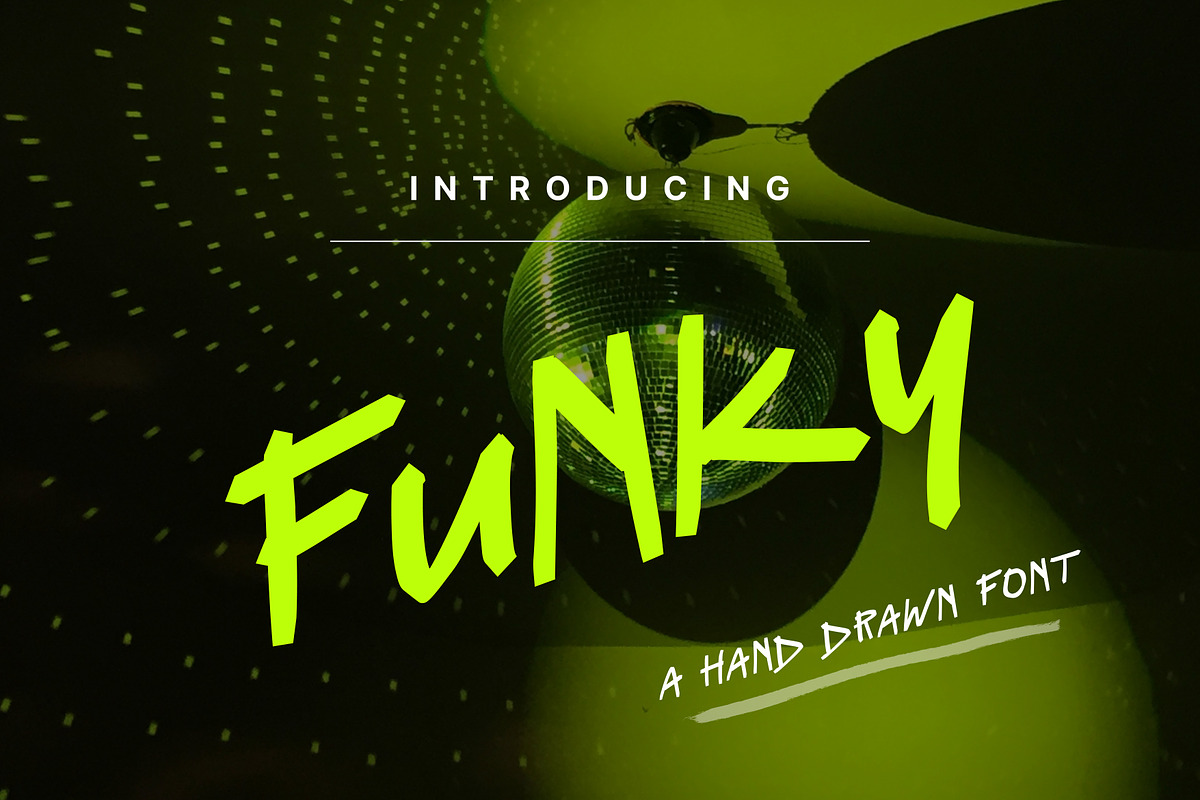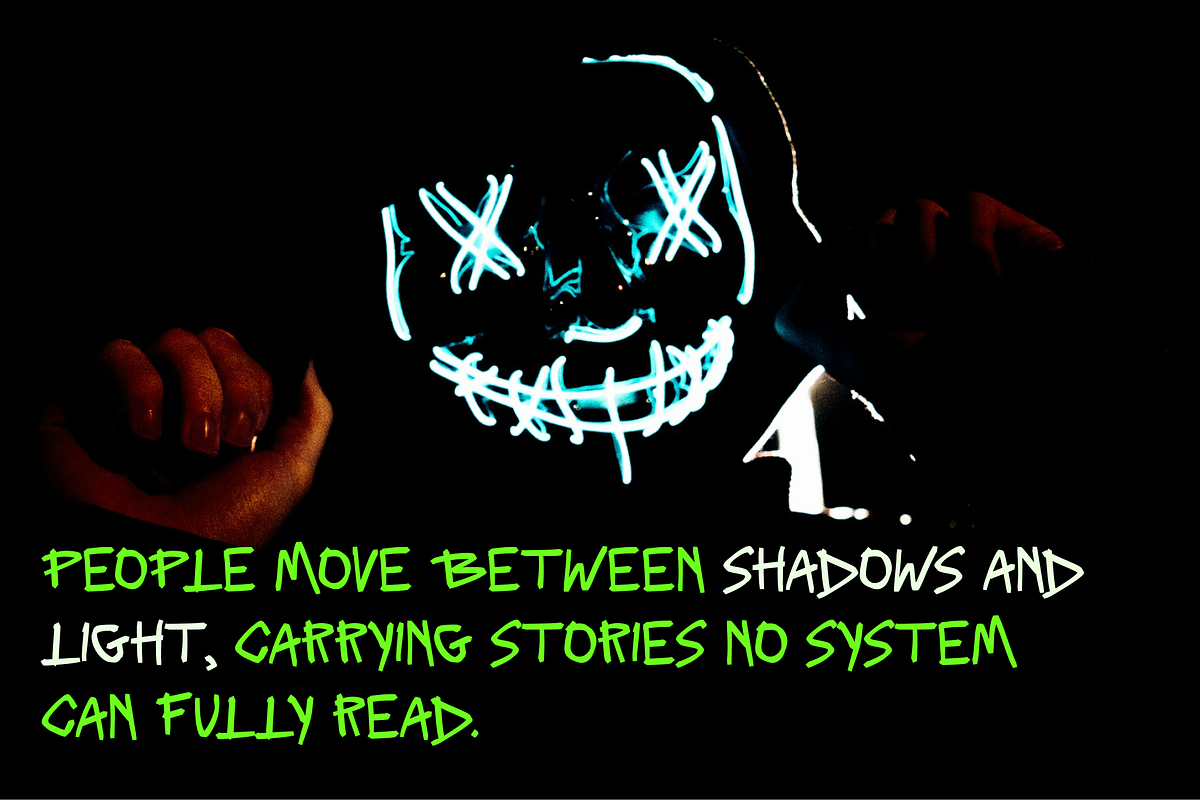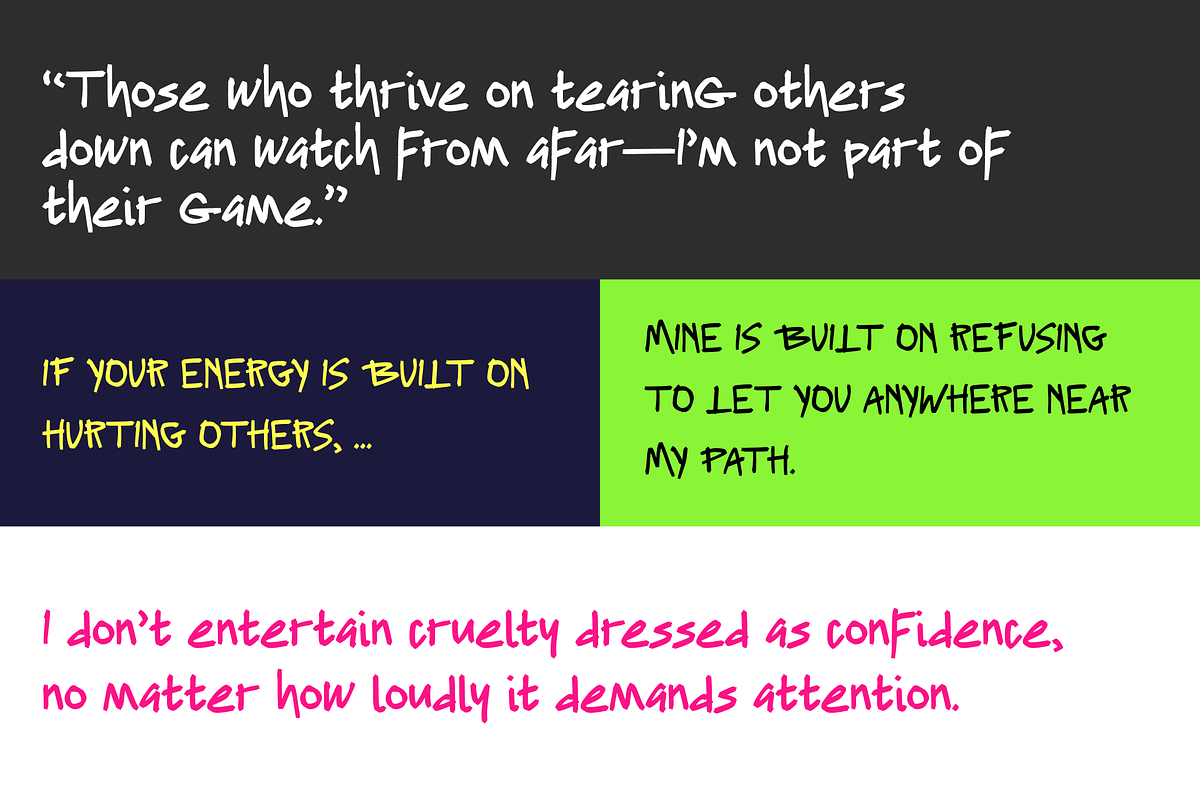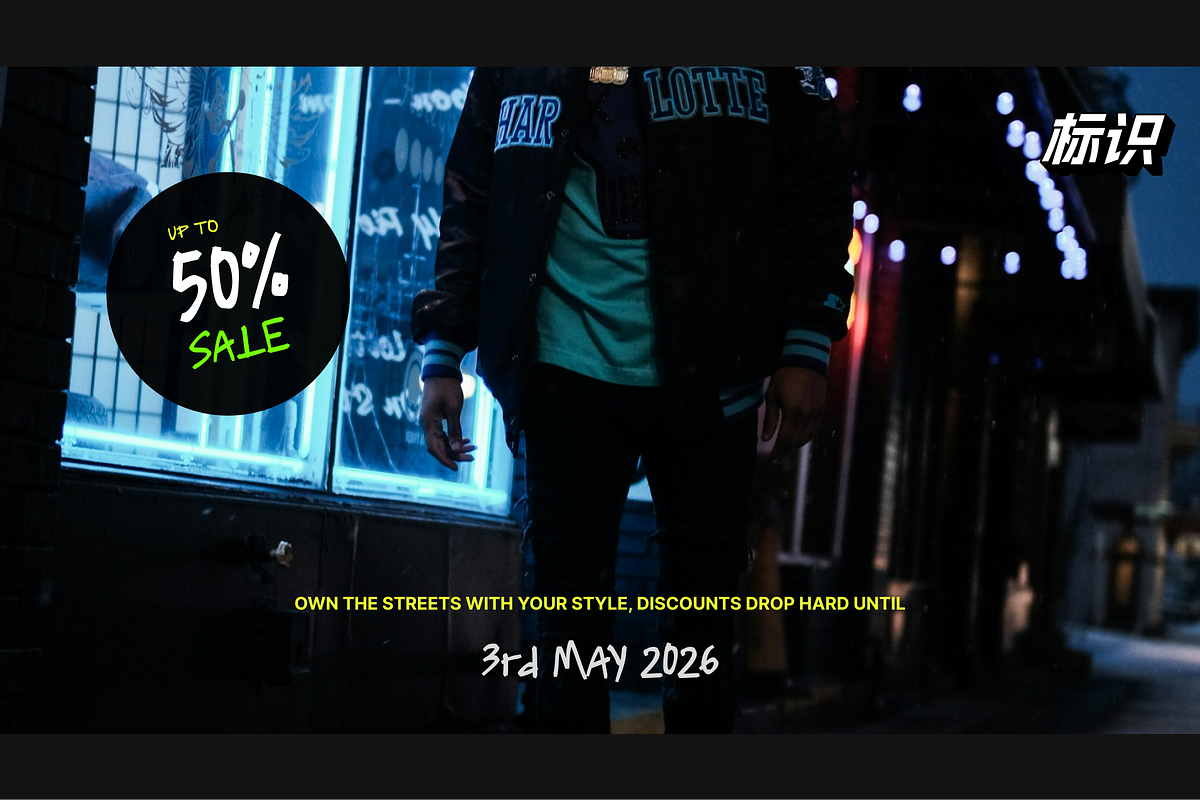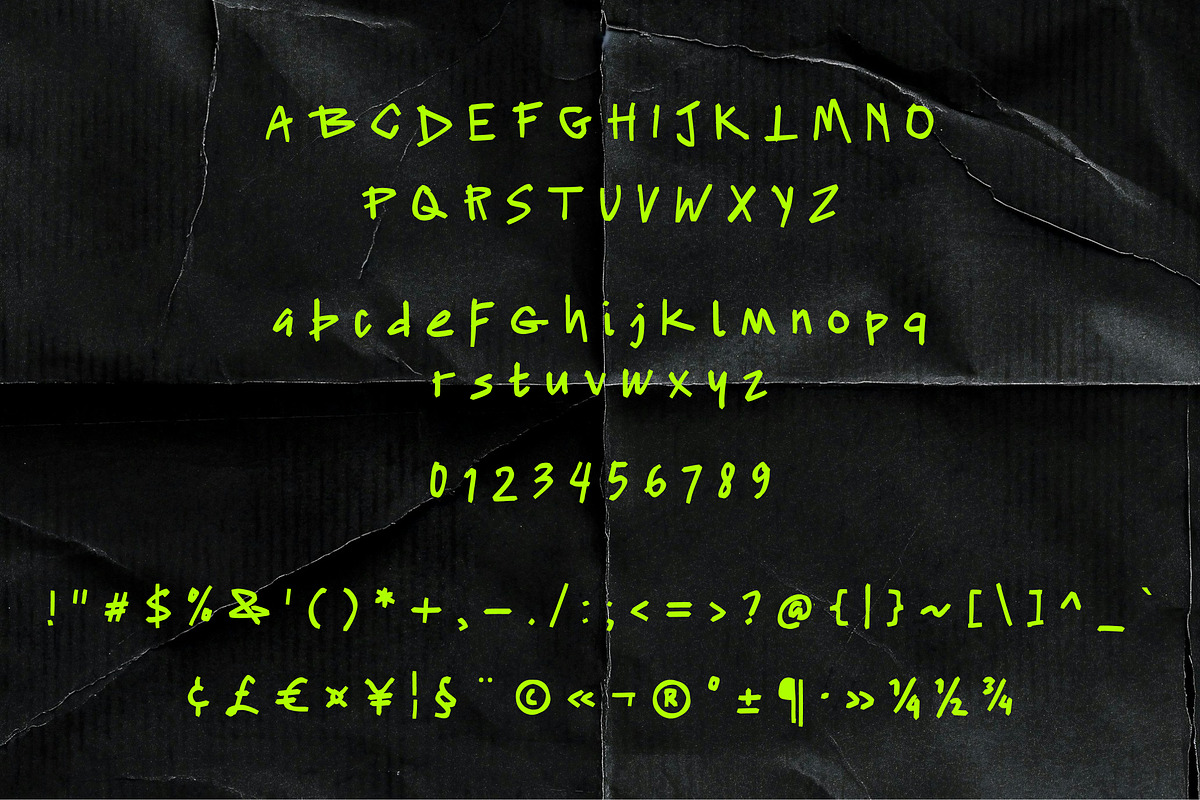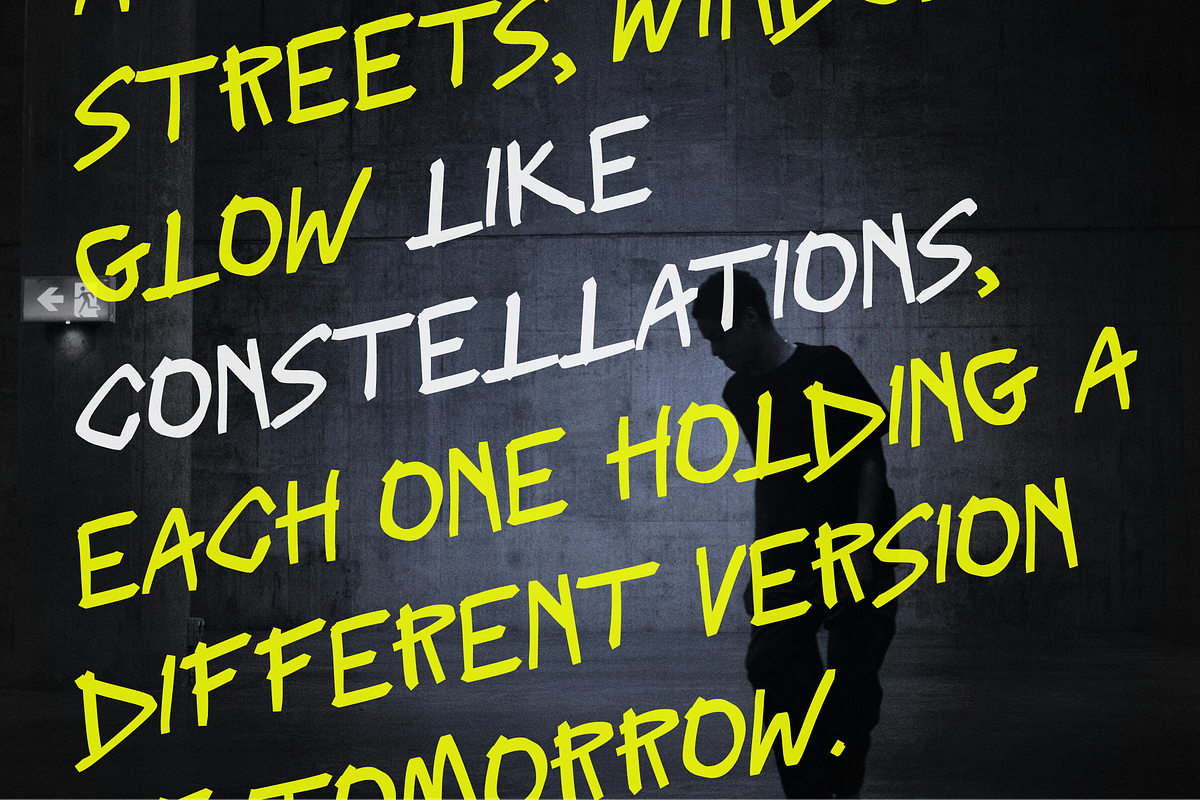
Funky Handwritten Font
Funky is a bold hand-drawn display font inspired by the energy of futuristic city life — where neon lights meet quiet streets, and digital visuals blend with human expression. It brings a cyber-style aesthetic with a softer, more approachable tone, making it perfect for designs that want to feel modern without being overly aggressive.
With its irregular strokes and expressive letterforms, Funky captures a raw, spontaneous feel while still maintaining clarity and readability. The style feels alive, slightly imperfect, and full of character — ideal for standing out in a visually saturated digital world.
This font works beautifully for projects that need a futuristic edge with a human touch.
Poster & editorial design Branding & identity Social media graphics Game-related visuals Urban and lifestyle themes Experimental and creative layouts
Uppercase & lowercase characters Numbers & punctuation Hand-drawn style with unique personality Easy to use and highly versatile
Funky is designed for creatives who want to explore a softer side of the cyber aesthetic — where bold expression meets subtle atmosphere.